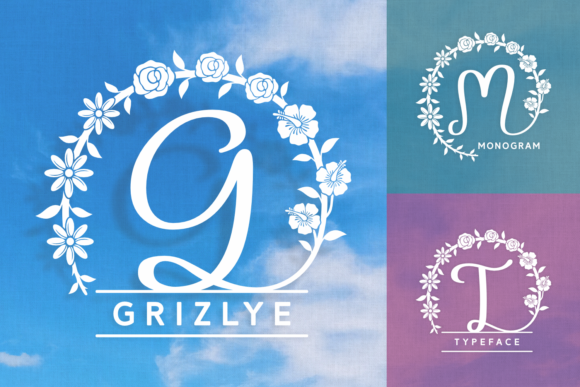
Grizlye Font: A Beautiful Monogram Font for Spring-Inspired Designs
In the world of typography, fonts play a crucial role in conveying the tone and aesthetic of a design. When it comes to creating visually stunning and cohesive designs, selecting the right font is essential. If you’re looking for a beautiful monogram font that’s perfect for spring-inspired designs, look no further than Grizlye Font. In this article, we’ll explore the features and benefits of Grizlye Font, and discuss how it can elevate your creative projects.
What is Grizlye Font?
Grizlye Font is a decorative monogram font that’s specifically designed for use in various types of designs and creative projects. Its unique blend of elegant lines and gorgeous floral details makes it an ideal choice for spring-inspired designs. With its beautiful and intricate details, Grizlye Font is sure to add a touch of sophistication and charm to any design.
Key Features of Grizlye Font
- Monogram font: Grizlye Font is a monogram font, making it perfect for creating custom monograms, logos, and branding materials.
- Spring-inspired: The font’s gorgeous floral details and elegant lines evoke the feeling of spring, making it ideal for designs that require a fresh and airy feel.
- Decorative: Grizlye Font is a decorative font, making it perfect for use in designs where you want to add a touch of elegance and sophistication.
- Versatile: The font can be used in a wide range of designs, including embroidery designs, wooden signs, nature-related logos, floral-themed cards, logos, identity designs, branding, t-shirts, and more.
Use Cases for Grizlye Font
Grizlye Font is a versatile font that can be used in a wide range of designs and creative projects. Here are some examples of how you can use this beautiful monogram font:
- Embroidery designs: Grizlye Font is perfect for creating custom embroidery designs for clothing, home decor, and other textiles.
- Wooden signs: The font’s elegant lines and floral details make it an ideal choice for creating wooden signs with a rustic or vintage feel.
- Nature-related logos: Grizlye Font is a great choice for creating logos for nature-related businesses, such as gardening companies, outdoor gear retailers, or environmental organizations.
- Floral-themed cards: The font’s beautiful floral details make it perfect for creating floral-themed cards for special occasions, such as weddings, birthdays, or anniversaries.
- Logos and branding: Grizlye Font can be used to create custom logos and branding materials for businesses that want to add a touch of elegance and sophistication to their brand.
- T-shirts and apparel: The font can be used to create custom designs for t-shirts, hoodies, and other apparel items.
Benefits of Using Grizlye Font
There are many benefits to using Grizlye Font in your designs and creative projects. Here are some of the advantages of choosing this beautiful monogram font:
- Unique and eye-catching: Grizlye Font is a unique and eye-catching font that will help your designs stand out from the crowd.
- Elegant and sophisticated: The font’s elegant lines and floral details add a touch of sophistication and elegance to any design.
- Versatile: Grizlye Font can be used in a wide range of designs and creative projects, making it a great addition to your font library.
Tips and Tricks for Using Grizlye Font
Here are some tips and tricks for using Grizlye Font in your designs and creative projects:
- Pair with complementary fonts: Grizlye Font looks great when paired with complementary fonts, such as sans-serif fonts or script fonts.
- Use in combination with images: The font looks great when used in combination with images, such as floral patterns or nature-inspired graphics.
- Experiment with colors: Grizlye Font looks great in a variety of colors, including pastel colors, bright colors, and neutral colors.
- Pay attention to spacing: Make sure to pay attention to spacing when using Grizlye Font, as the font’s intricate details can make it look crowded if not spaced correctly.
In conclusion, Grizlye Font is a beautiful monogram font that’s perfect for spring-inspired designs and creative projects. With its elegant lines, gorgeous floral details, and versatile use cases, this font is sure to add a touch of sophistication and charm to any design. Whether you’re a designer, artist, or DIY enthusiast, Grizlye Font is a great addition to your font library.